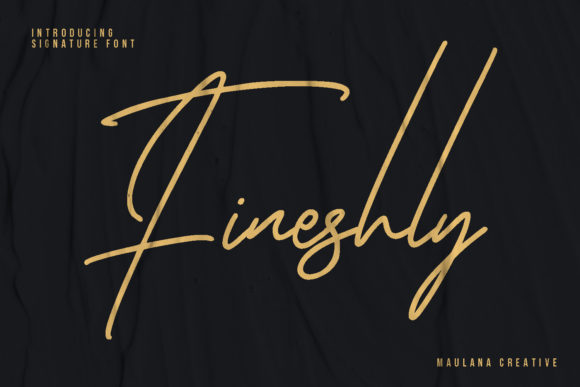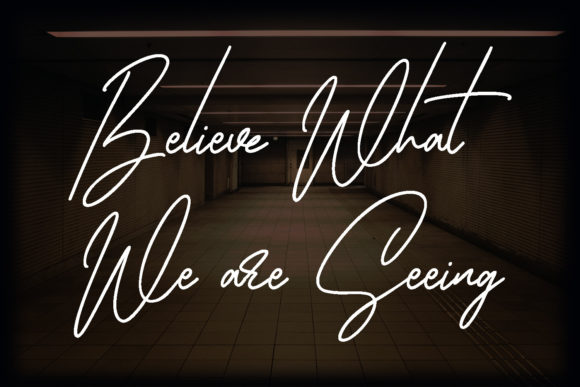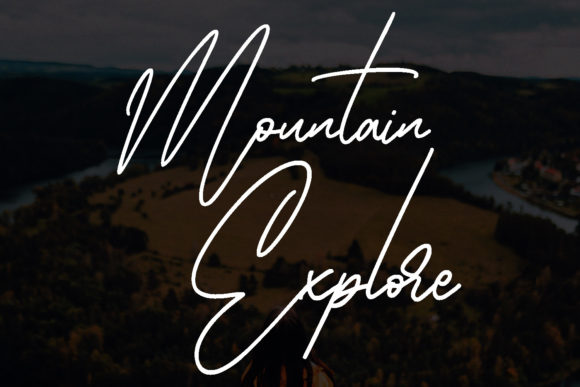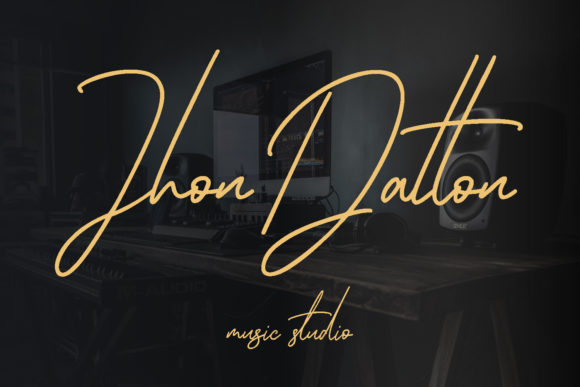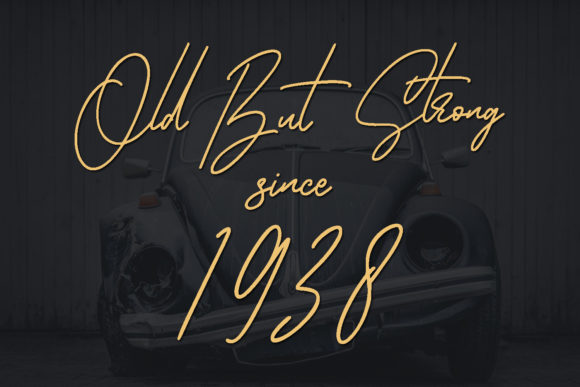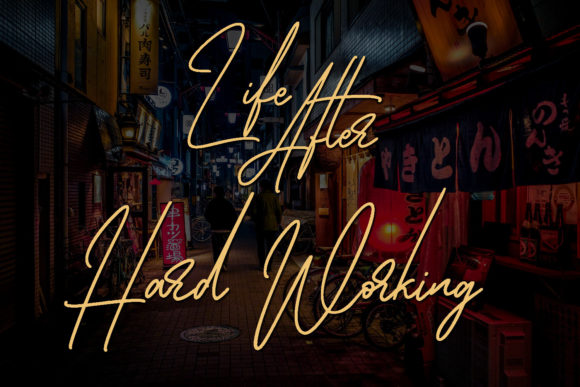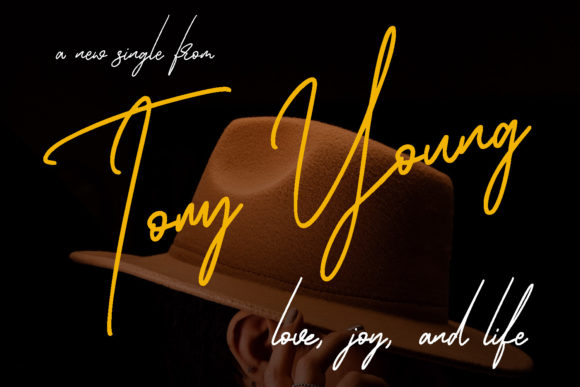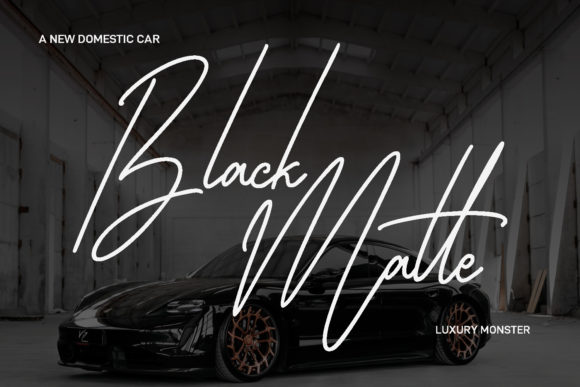
Fineshly Signature Font
About Fineshly Signature Font
Fineshly Signature is a refined and elegant script font that exudes sophistication and style. With its delicate and flowing letterforms, Fineshly Signature adds a touch of luxury to any design project, making it a versatile choice for a range of applications.
When it comes to branding, Fineshly Signature offers a distinct and fashionable aesthetic that can elevate your brand identity. Whether you’re designing a logo, creating packaging, or crafting promotional materials, this font’s graceful curves and intricate details will leave a lasting impression on your audience.
The font’s versatility extends to t-shirt printing, where Fineshly Signature’s exquisite design can add a touch of elegance to your apparel. Its unique and artistic appearance sets it apart, making your t-shirt designs stand out and capture attention.
For creative products and merchandise, Fineshly Signature brings a sense of refinement and sophistication. Whether you’re designing stationery, mugs, or other products, this font’s stylish and timeless look will add a touch of class to your creations.
Fineshly Signature’s beauty shines in a variety of contexts, making it suitable for a wide range of projects. Its delicate strokes and fashionable appearance make it perfect for invitations, greeting cards, and other special event materials, infusing them with an air of elegance and charm.
The font’s flowing and graceful nature is well-suited for quotes, adding a touch of flair and personality to your typography. Whether it’s for social media posts or printed materials, Fineshly Signature can make your quotes and messages truly memorable.
Incorporating Fineshly Signature into your design arsenal allows you to create extraordinary visuals that capture the essence of sophistication and creativity. Its delicate and fashionable script style adds a touch of luxury to every project, ensuring that your designs leave a lasting impact on your audience.